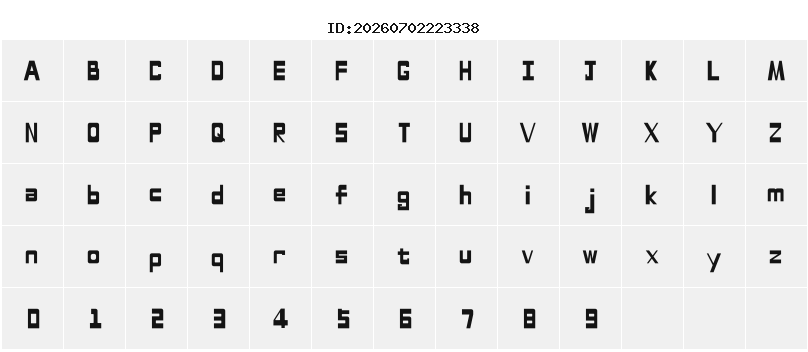
257-上首福袋体 Preview
• Font Name: 257-上首福袋体
• Font ID: 257-SS Fu Dai Ti:Version 6.00
• Full Font Name: 257-上首福袋体
• Version: Version 6.00 November 4, 2023
• PostScript Name: 257-SSFuDaiTi
• Character Count: 7569
• Manufacturer: 上首造字
About 257-上首福袋体.ttf
257-上首福袋体.ttf is a modern, elegant sans-serif font designed for ultimate readability and visual harmony. Perfect for branding, headlines, web design, and print materials.